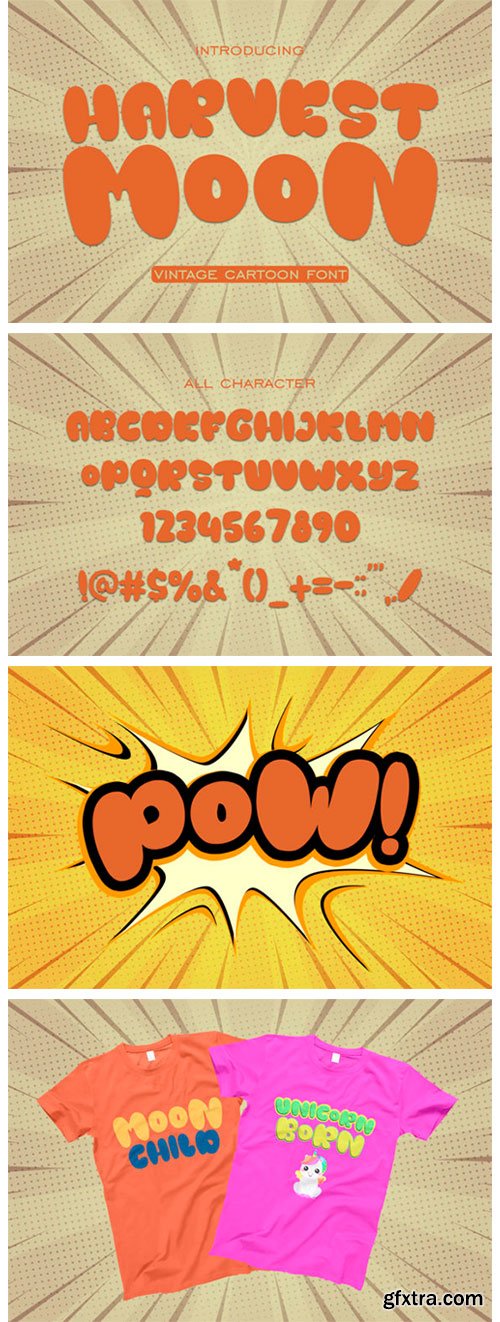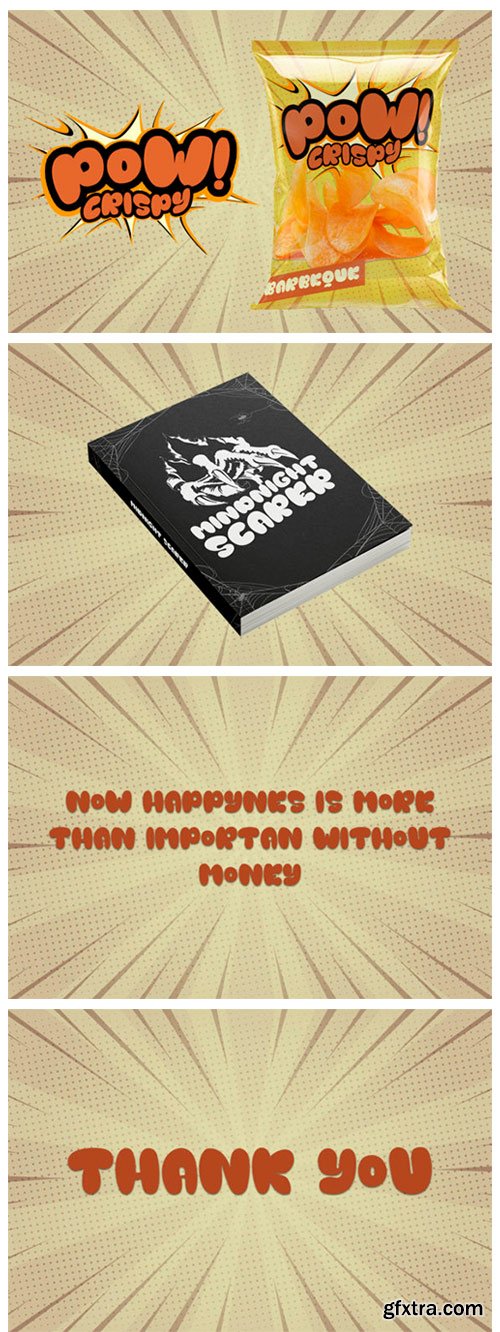
Harvest Moon Font
Harvest Moon is a vintage display font. It features a powerful and comic styles that makes it perfect for packaging and branding. Take your designs to the next level with this amazing typeface!